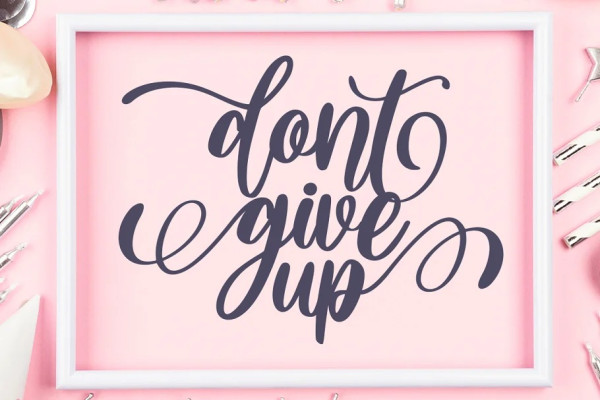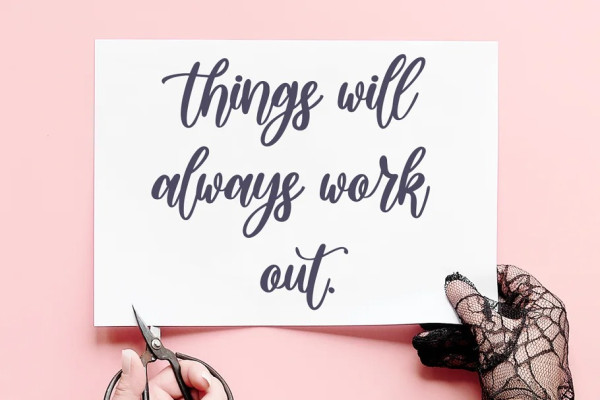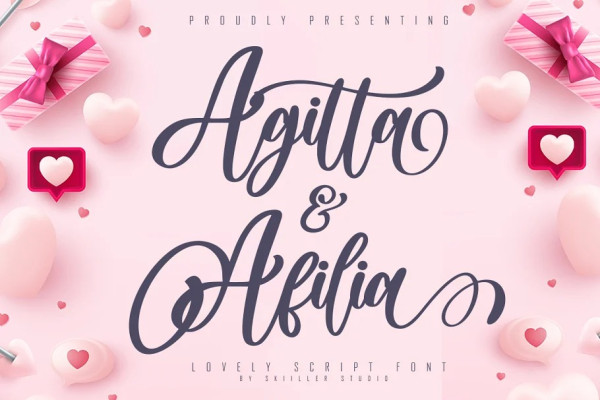
Agitta Afilia Font
Agitta Afilia Font – Lovely Script Font is a beautiful font script with a modern and cool style designed with many features more than 200+ alternate encoded PUA and more than 400+ GLYPHS, suitable for promotion, business, company, clothing, wedding and more